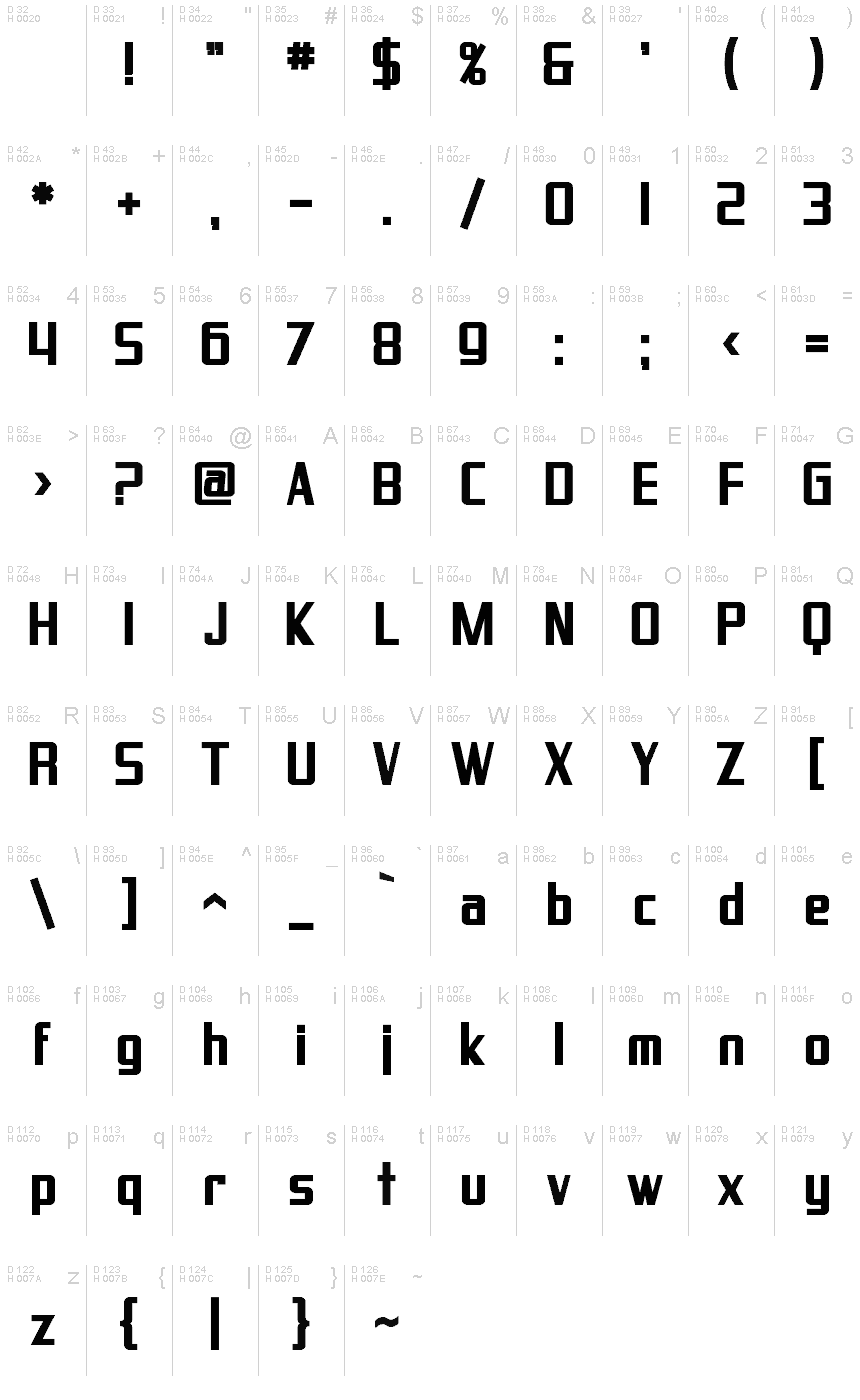
SF Proverbial Gothic Bold
SF Proverbial Gothic Bold, a distinctive member of the SF Proverbial Gothic family by ShyFonts Type Foundry, is a font that encapsulates modernity with a nod to the gothic sensibilities of yesteryears. This semi-bold, display typeface is characterized by its techno style, offering a sleek yet edgy aesthetic that commands attention.
Sporting semi-condensed proportions, SF Proverbial Gothic Bold delivers impact without overwhelming. The clean lines and sharp angles contribute to its contemporary vibe, making it an ideal choice for projects that require a touch of sophistication paired with cutting-edge design.
Whether it's branding, poster design, or digital media applications, this font exudes versatility and visual harmony. Its unique style bridges the gap between traditional gothic elements and modern techno flair. Engage your audience with SF Proverbial Gothic Bold—the font that elevates your creative endeavors with its bold character and stylish allure.